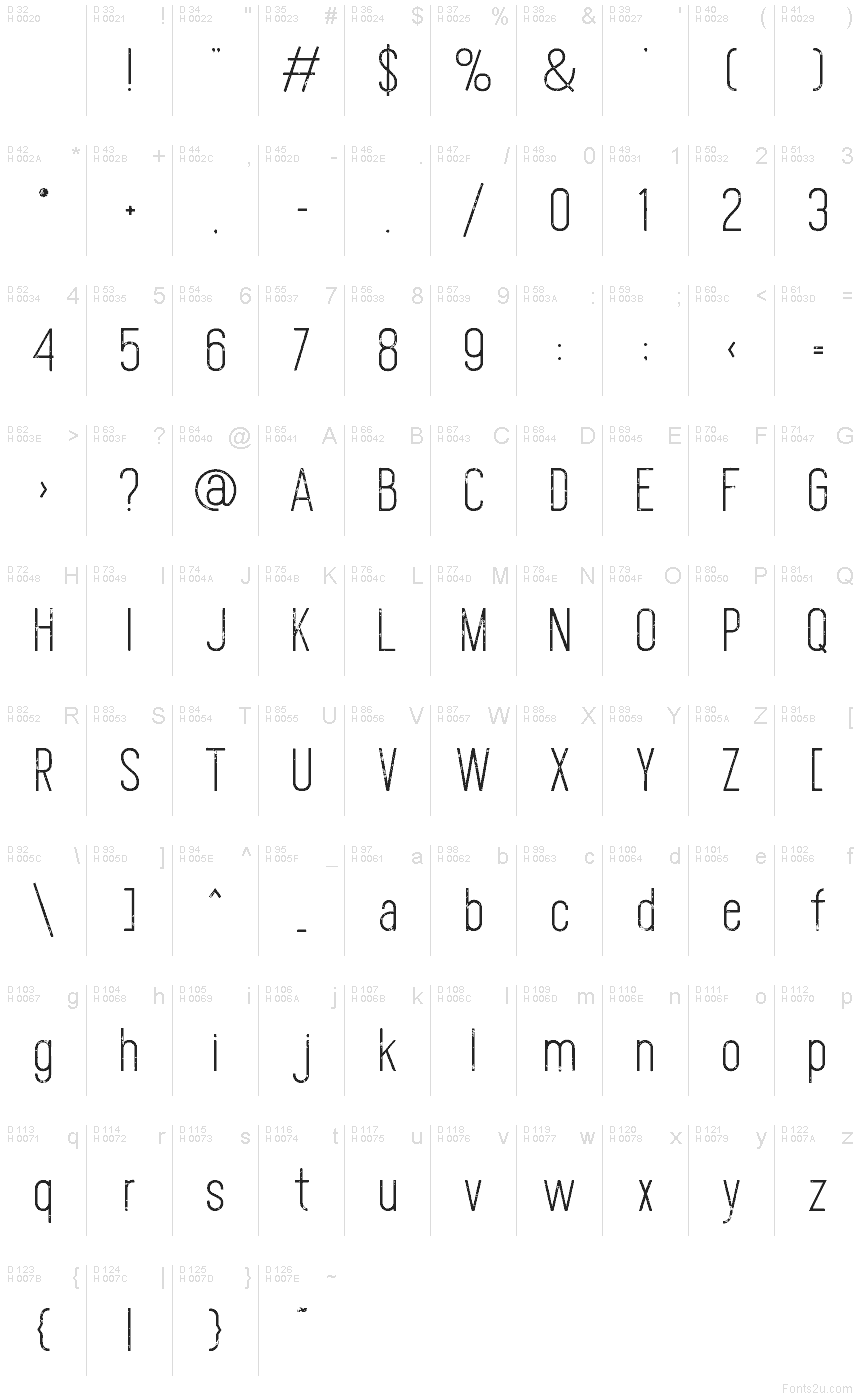
Rolever Texture
Rolever Texture font by PutraCetol Studio is a light, condensed display typeface with an eroded appearance. Visualizing a grungy and distressed look, the font evokes a raw industrial feel that fits perfectly within modern aesthetic expectations. Its melted, stripped body gives off urban vibes in an affected, gracefully misunderstood style.
Be it book or movie titles and covers; album cover typography or quotes; this free display font can elevate posters’ designs and gift card typography as well. It’s also appropriate for intimate settings like table place cards at dinners and fashion magazine cover typography.